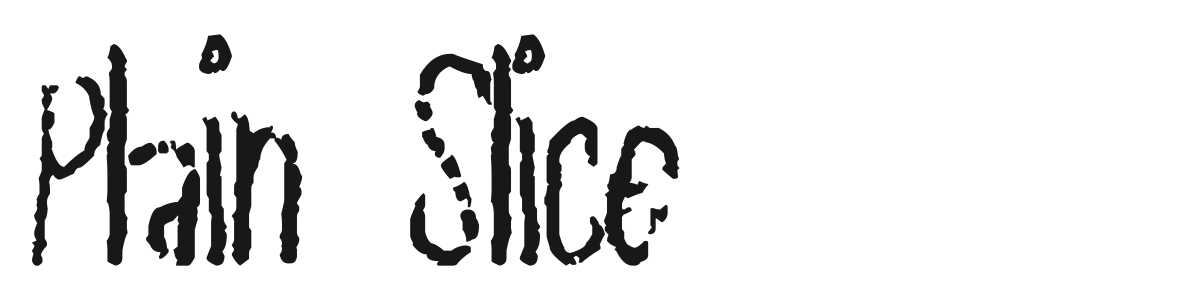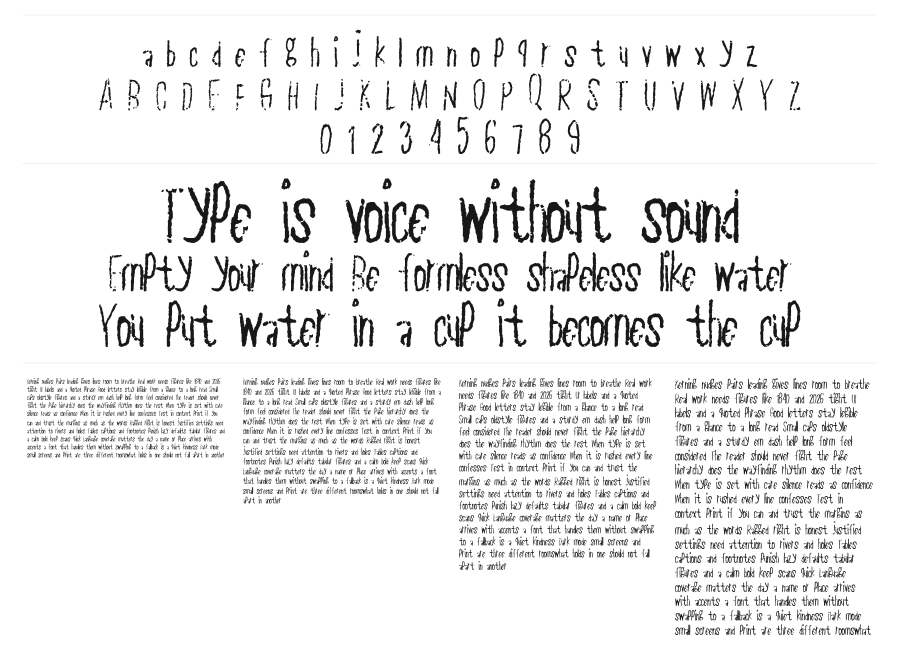
Plain Slice
Plain Slice is a narrow, condensed display face from Xerographer Fonts with a rough, worn-down texture that makes every letter look like it's been weathered or peeled off a wall. The tight proportions and grungy edges give it a raw, lo-fi quality that works for headlines, gig posters, and packaging where you want type that feels physically degraded rather than digitally clean.